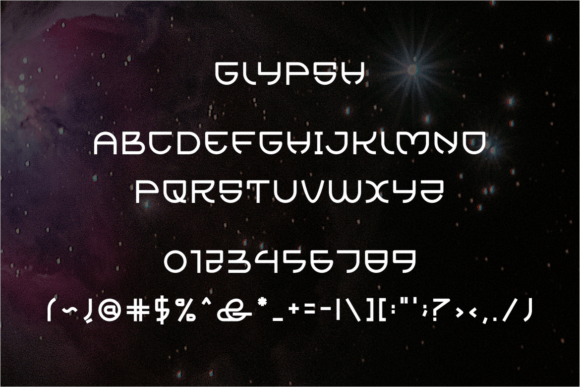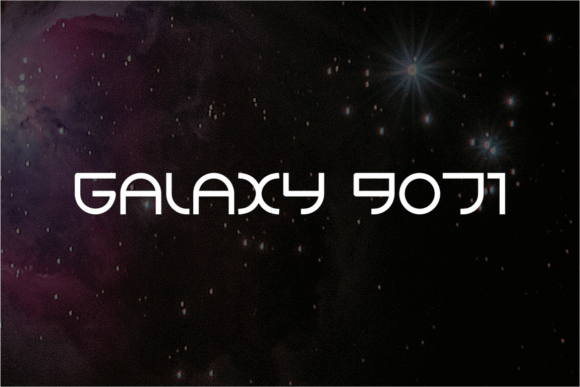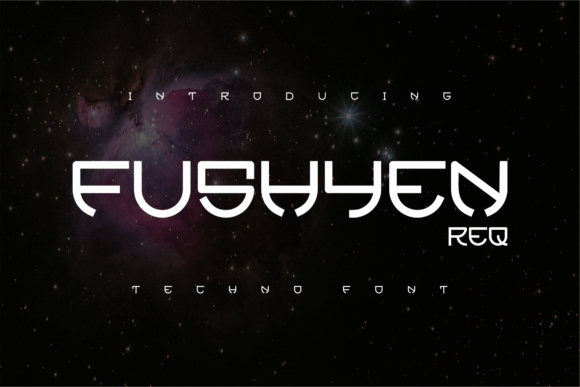
Introduction to Fushyen Req Font
Fushyen Req Fis is a cool and futuristic display font.
This modern and bold vibe can easily apply to your favorite designs Suitable for sports design, team, jersey, league, movie, documenter, film, logo, poster, game, book cover, headlines, title, and many more projects.